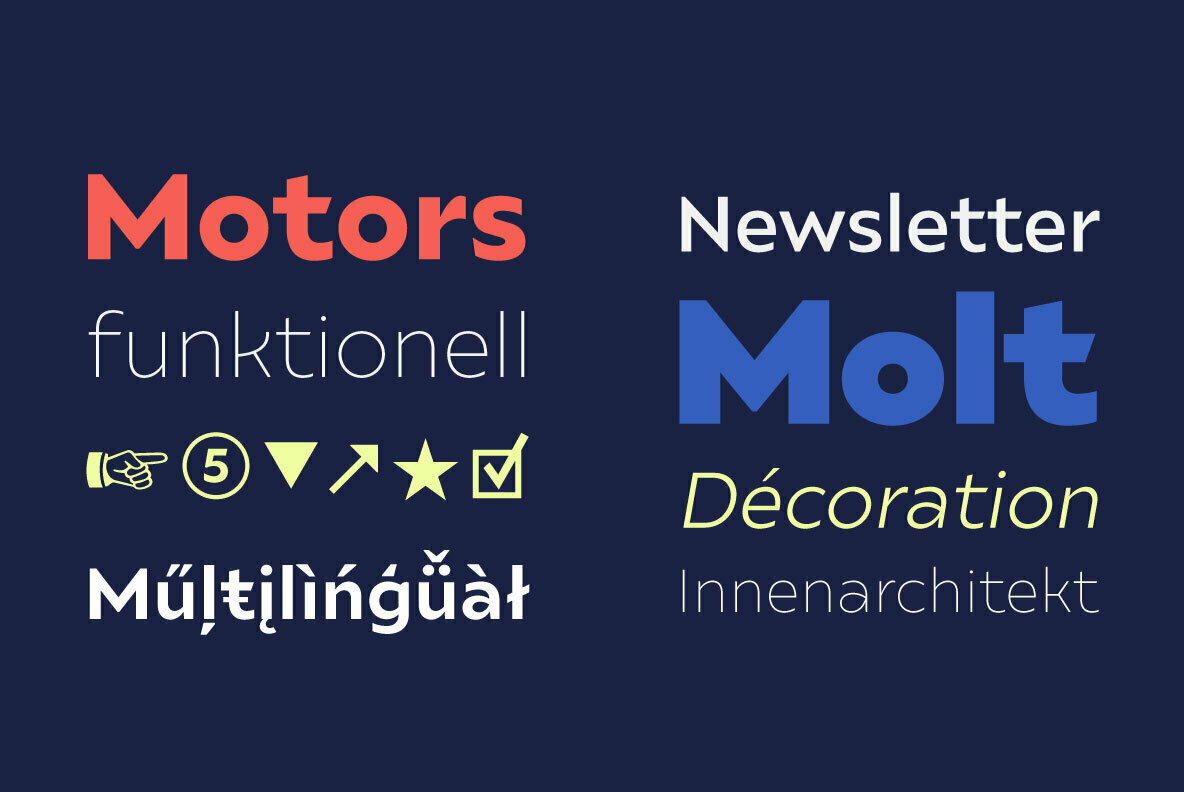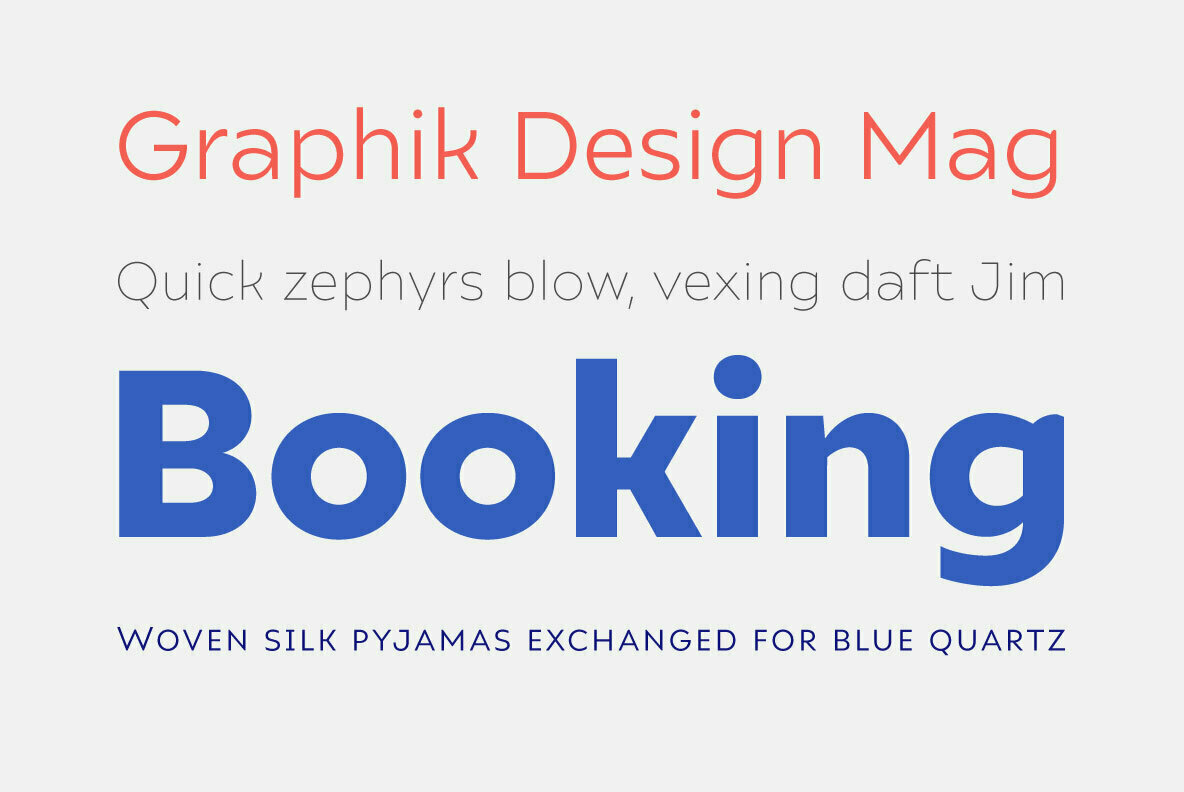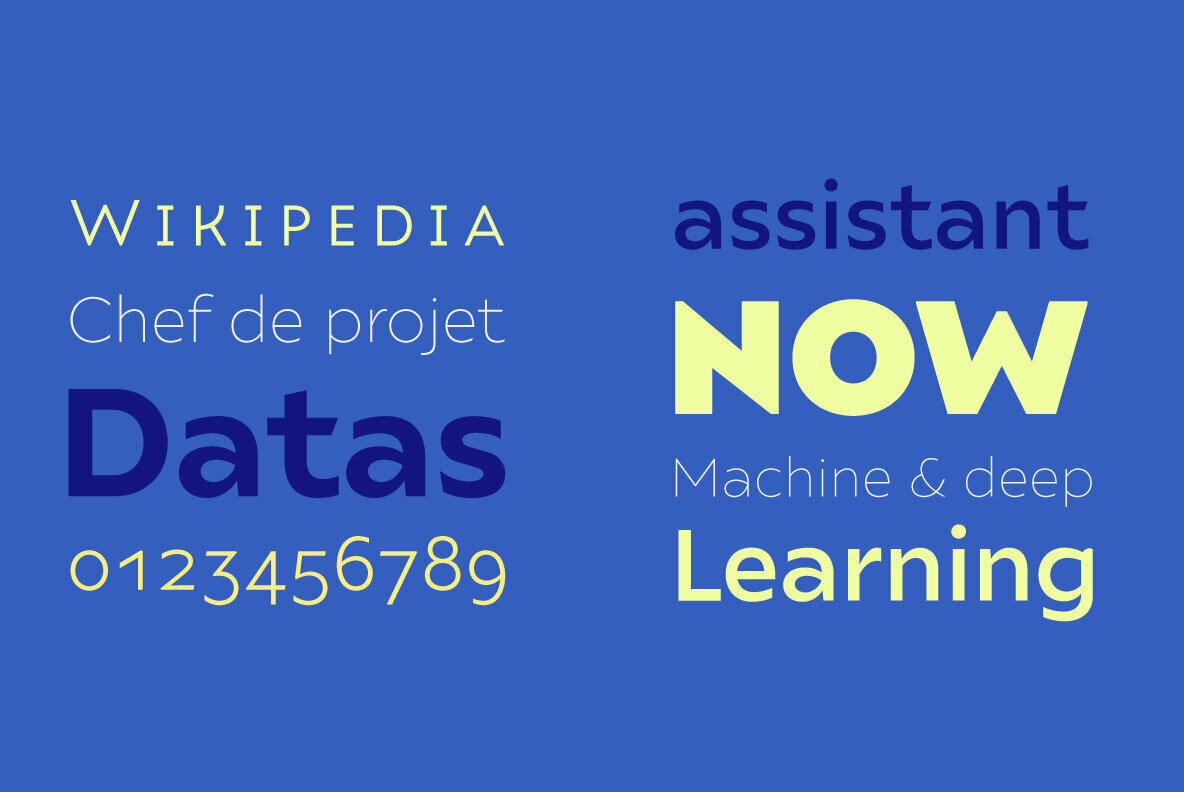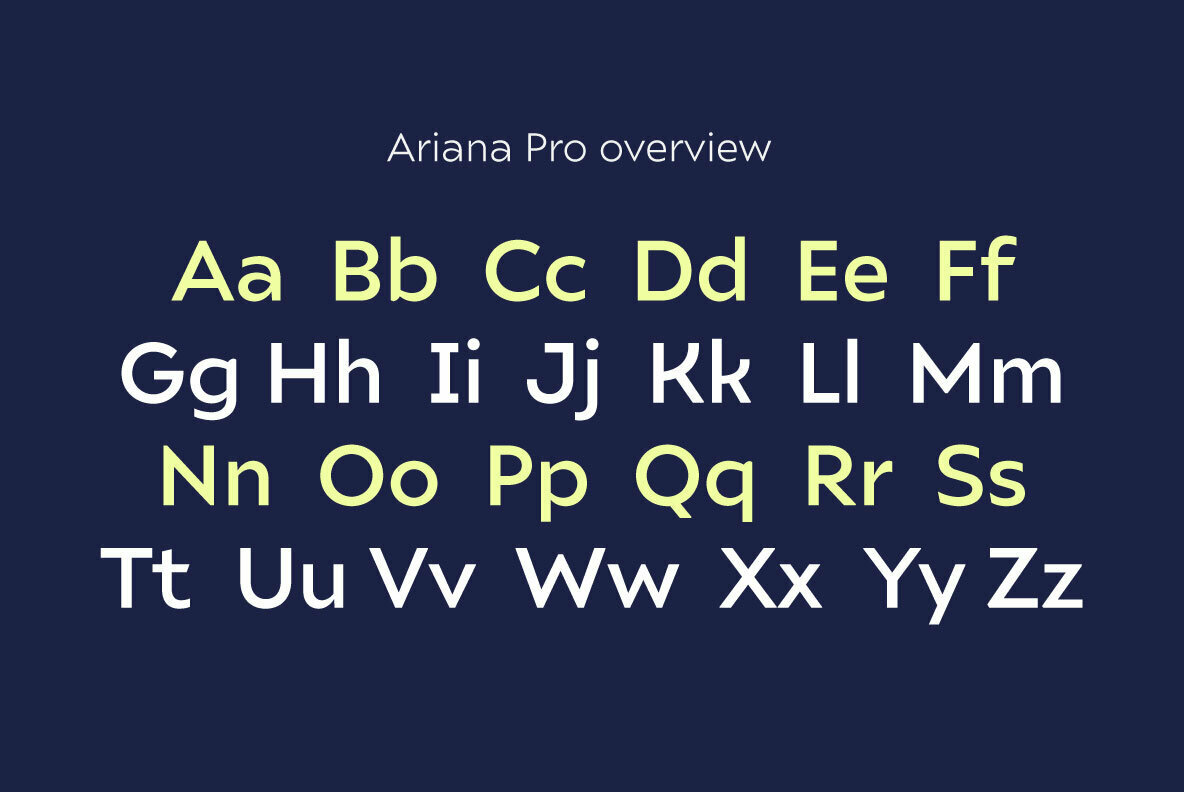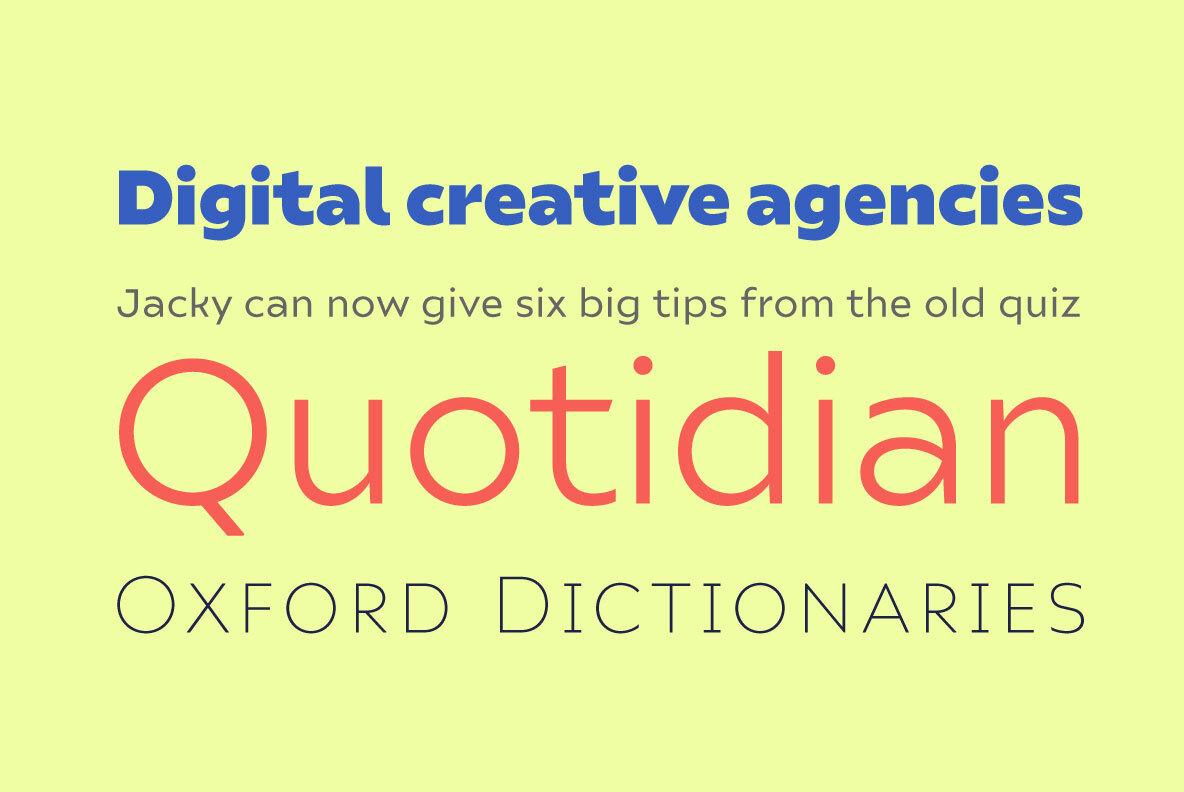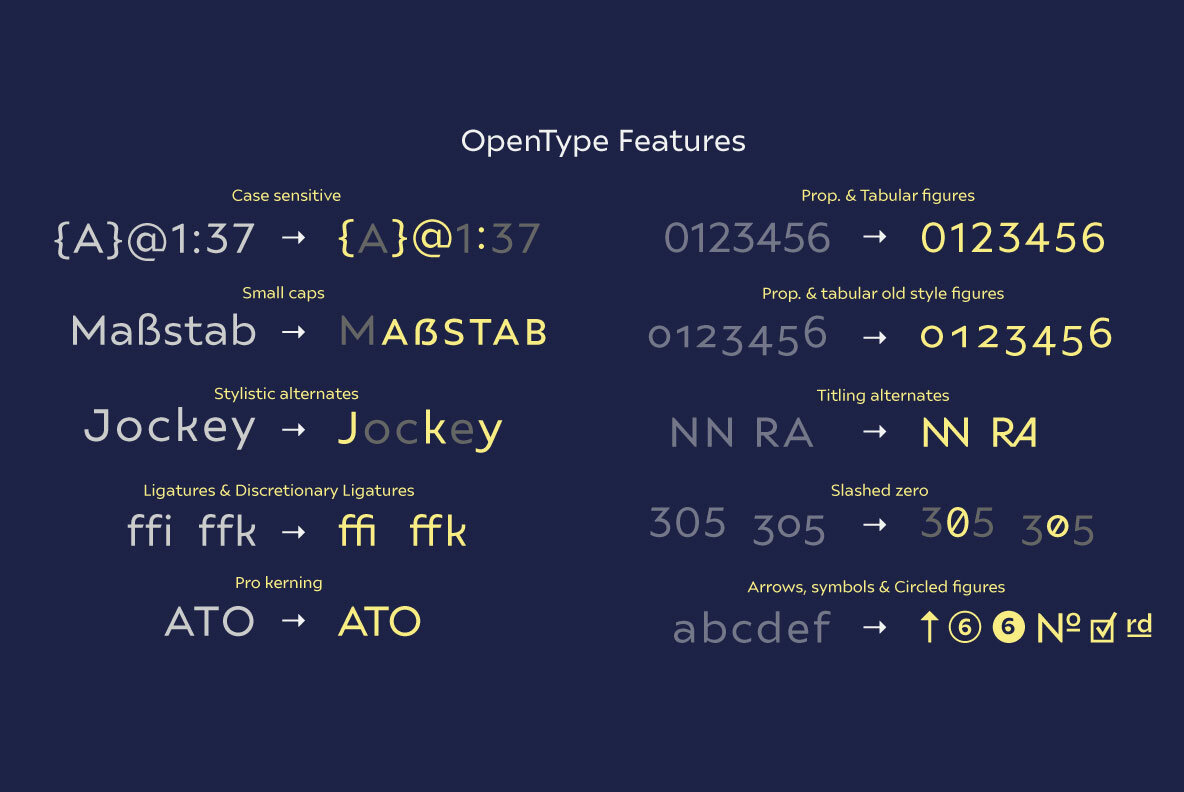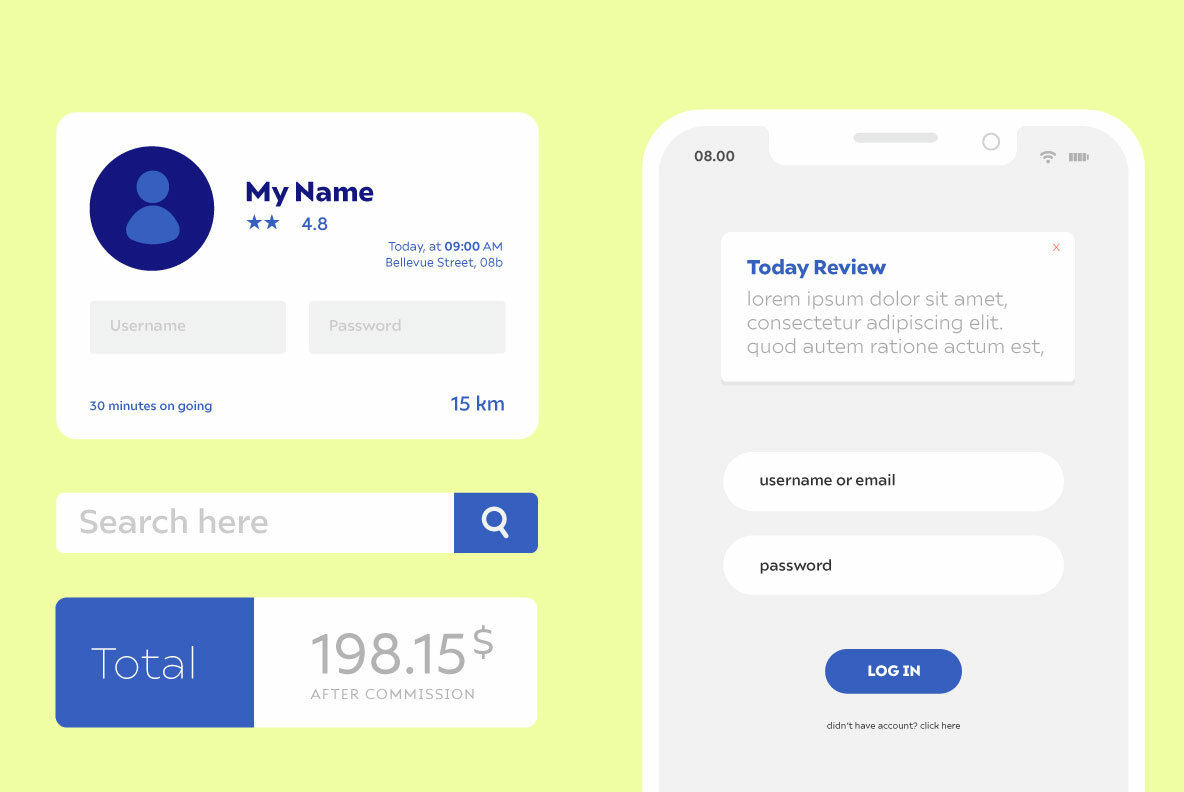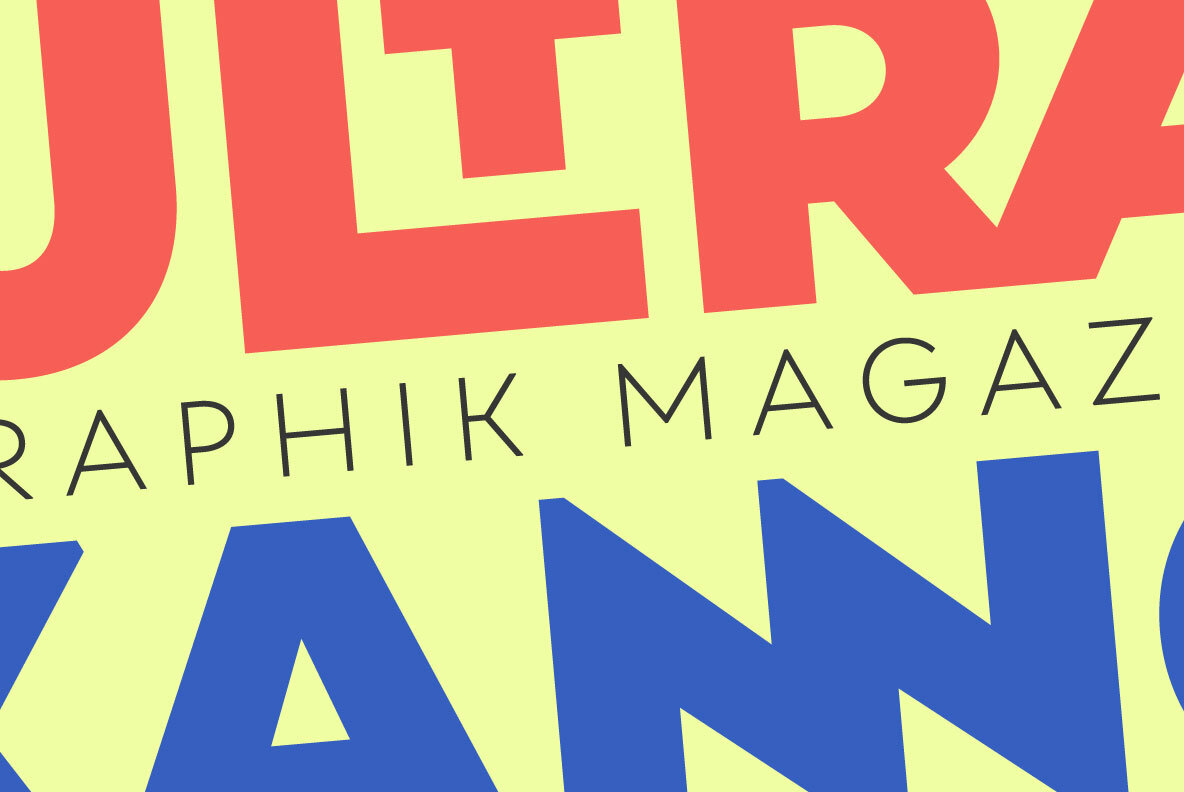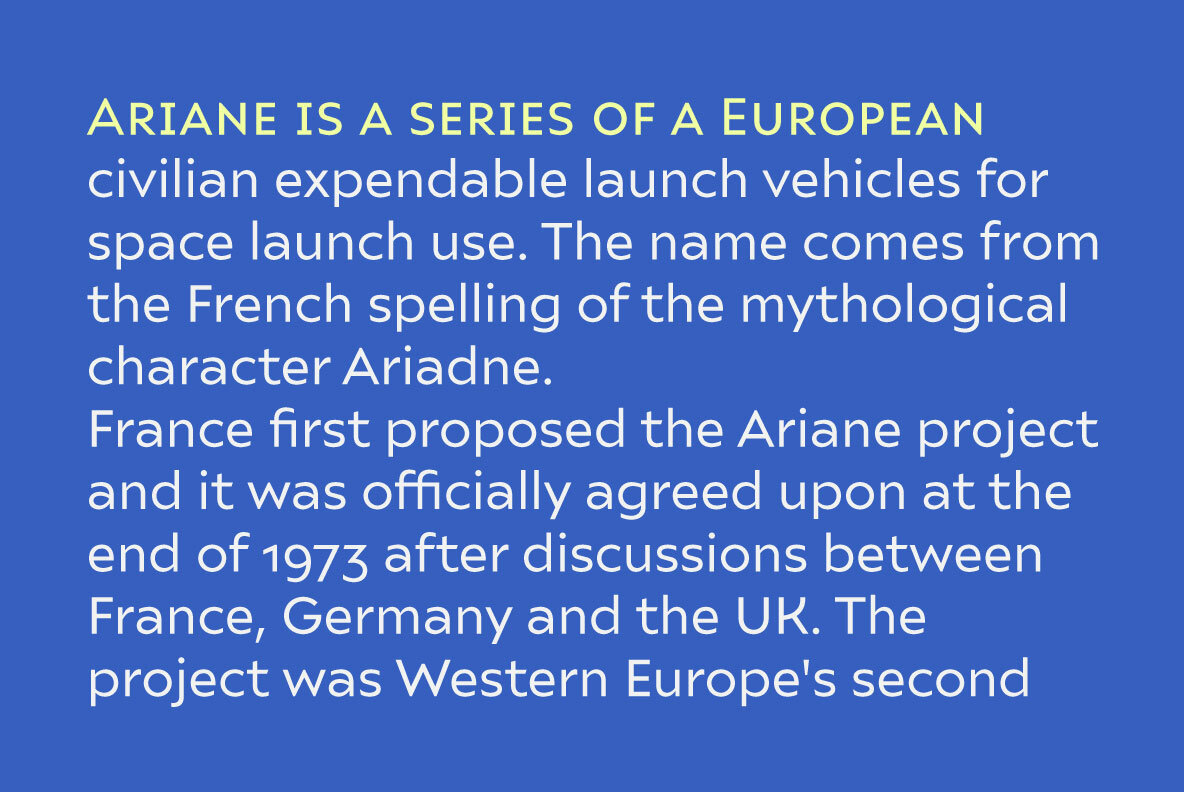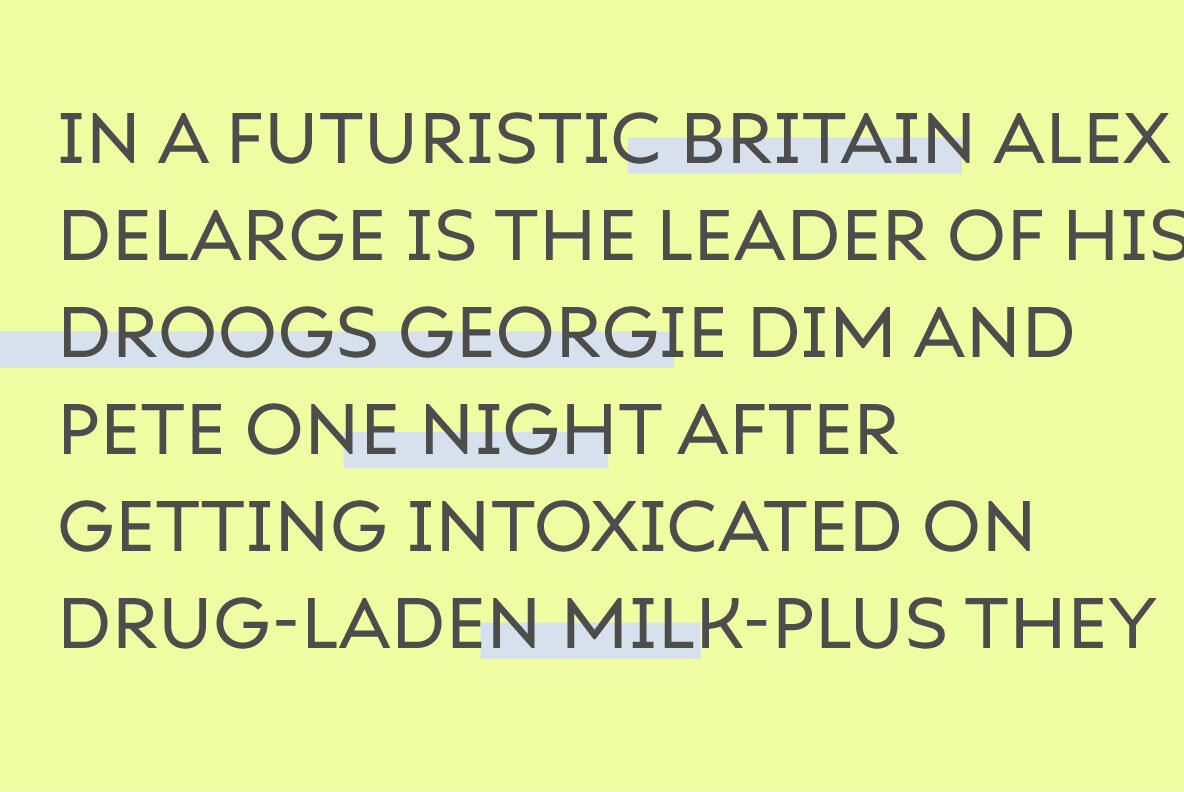
Ariana Pro Font
Ariana Pro is a sophisticated geometric font family that offers advanced typographic support suitable for a range of creative applications. This modern sans serif typeface includes case sensitive forms, small caps, and a variety of ligatures, making it an excellent choice for both digital and print design projects. Its well-designed alternate characters and specialized fraction capabilities add versatility to your typography toolkit. Features: Ariana Pro is ideal for editorial use, digital ads, long text formats, and branding endeavors, making it a versatile addition to any designer's toolkit.Ariana Pro: A Geometric Typeface Family